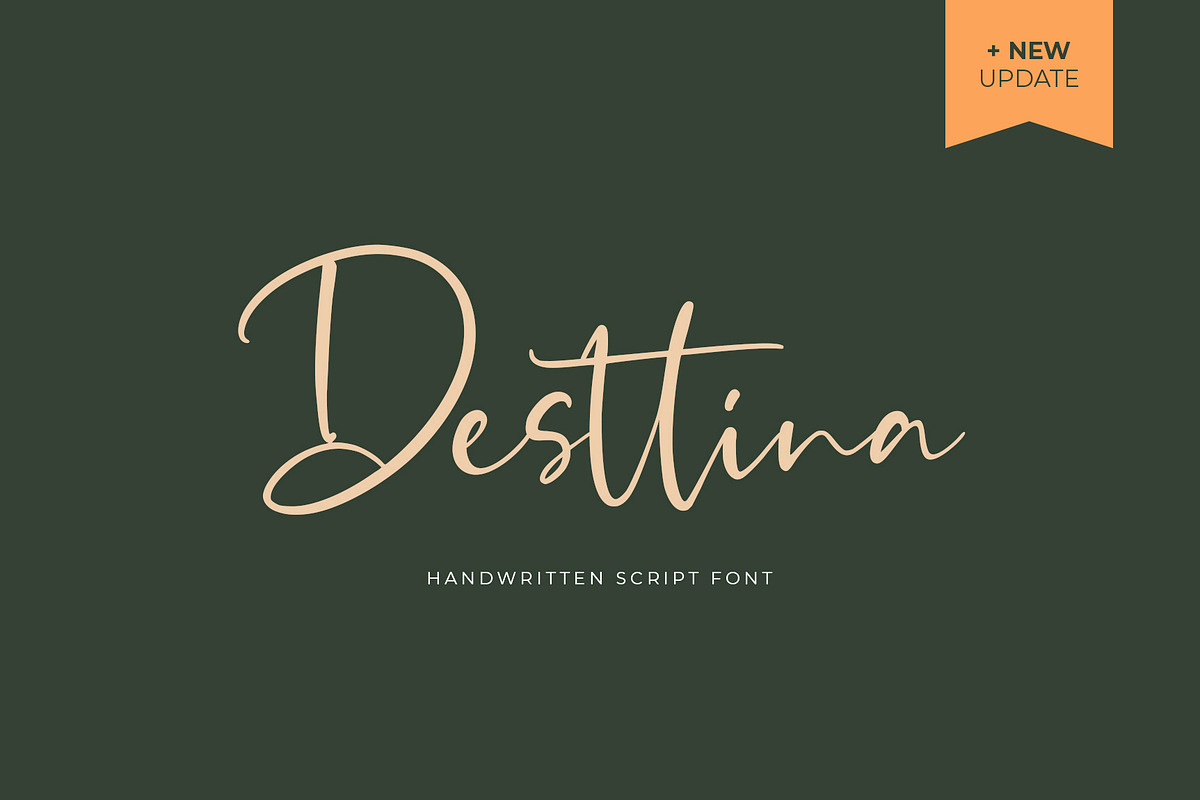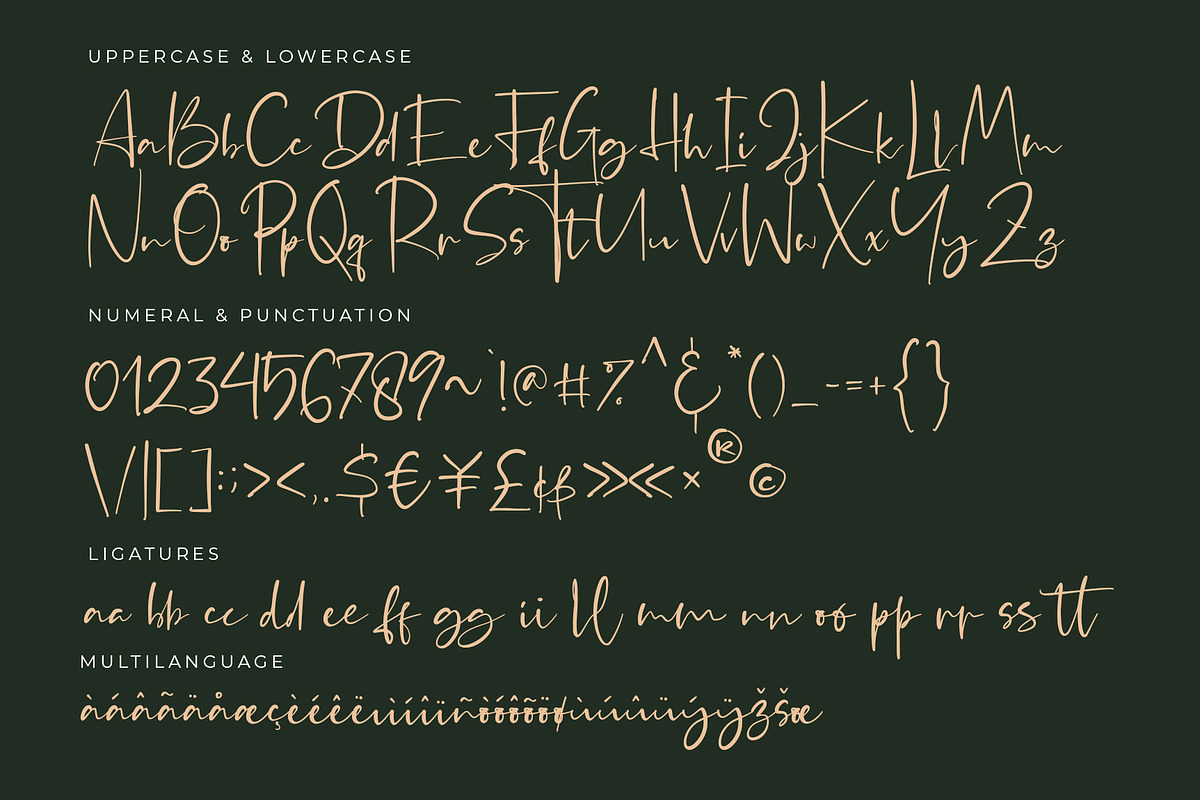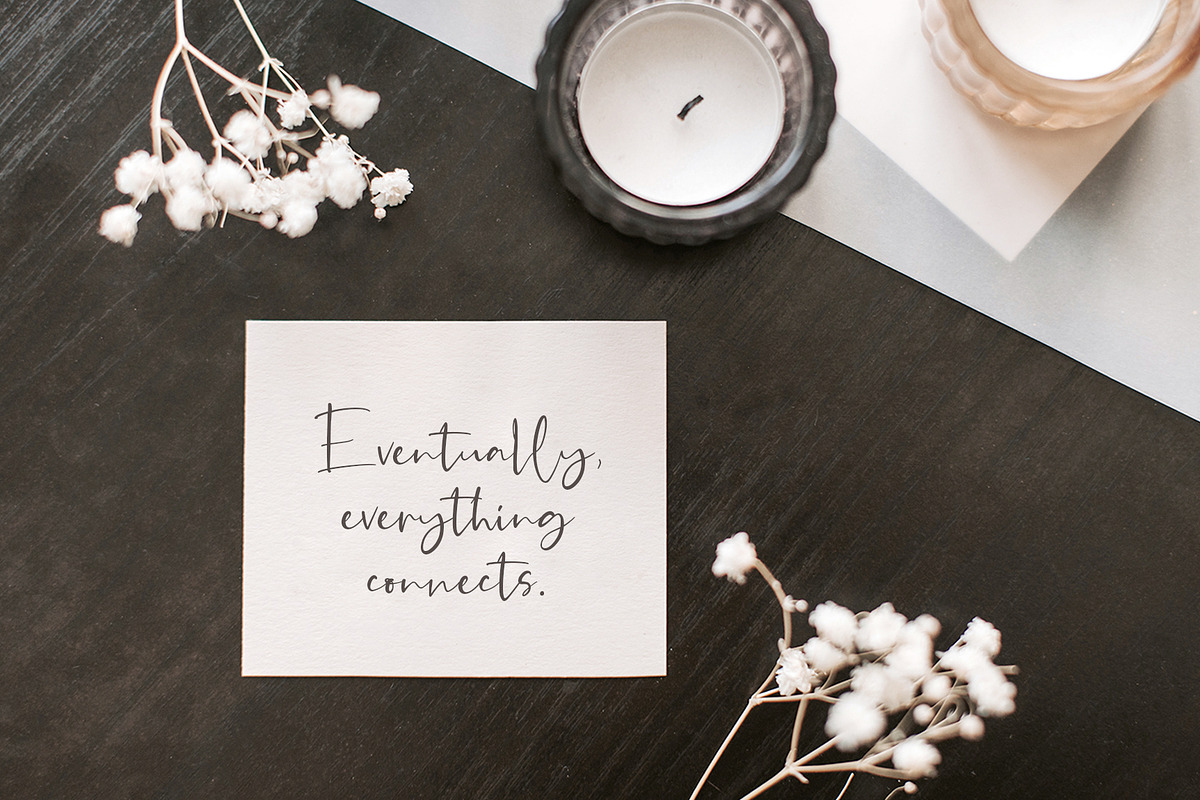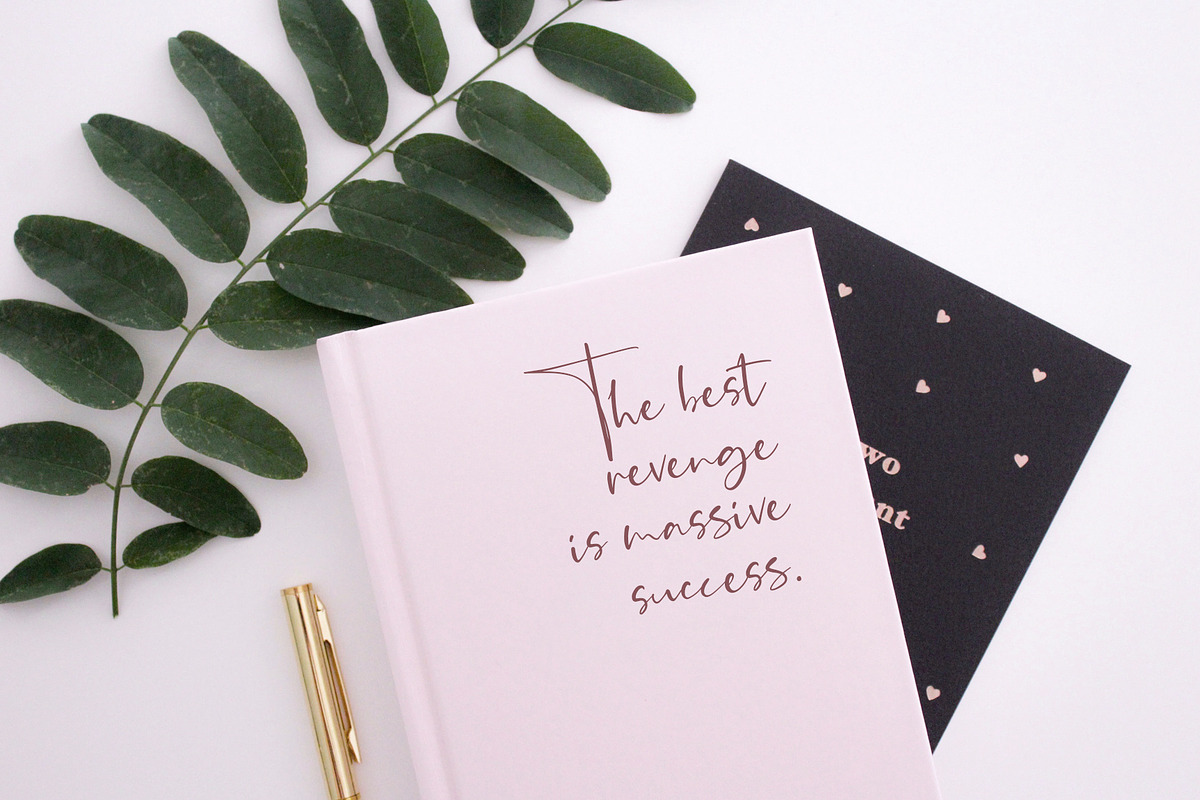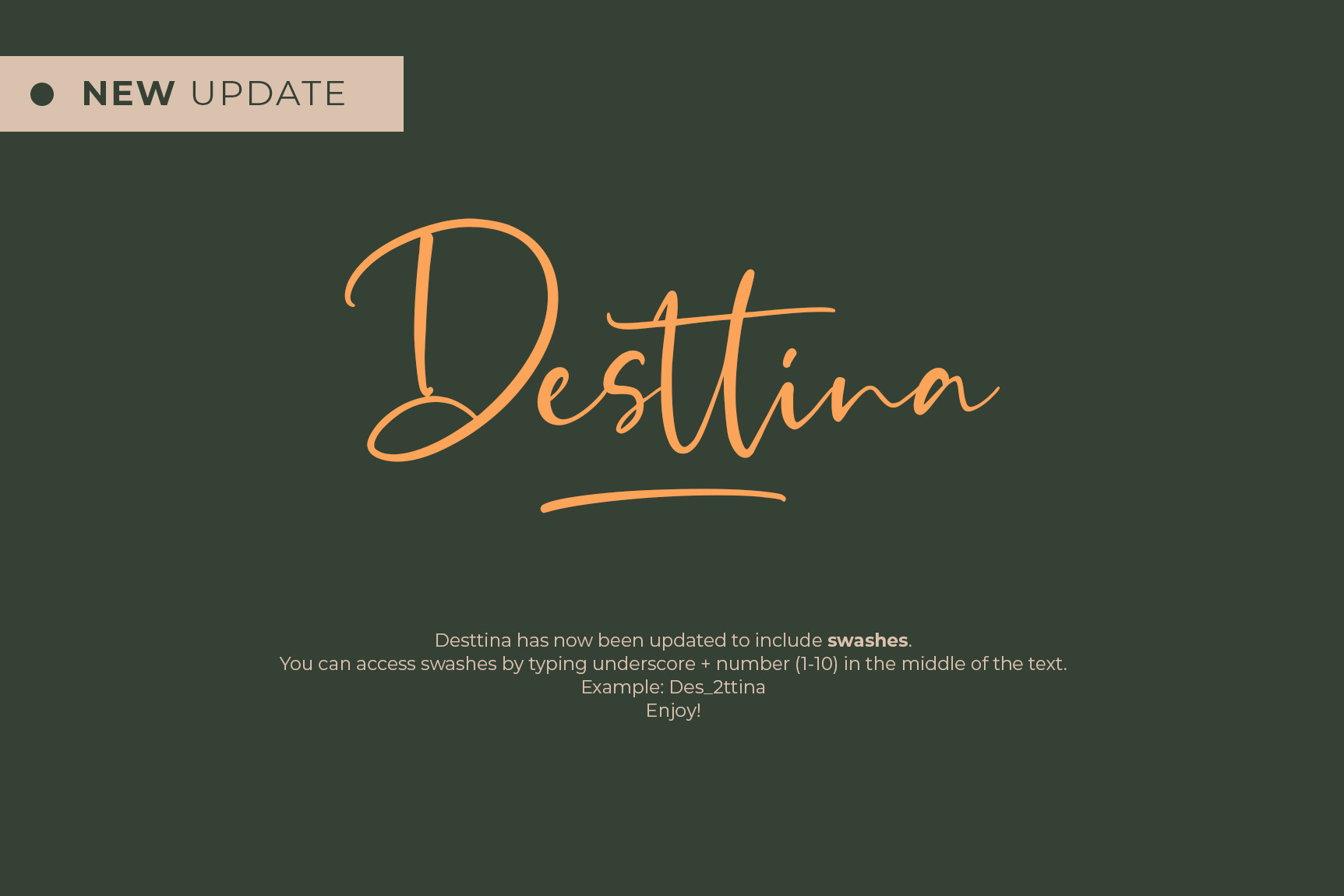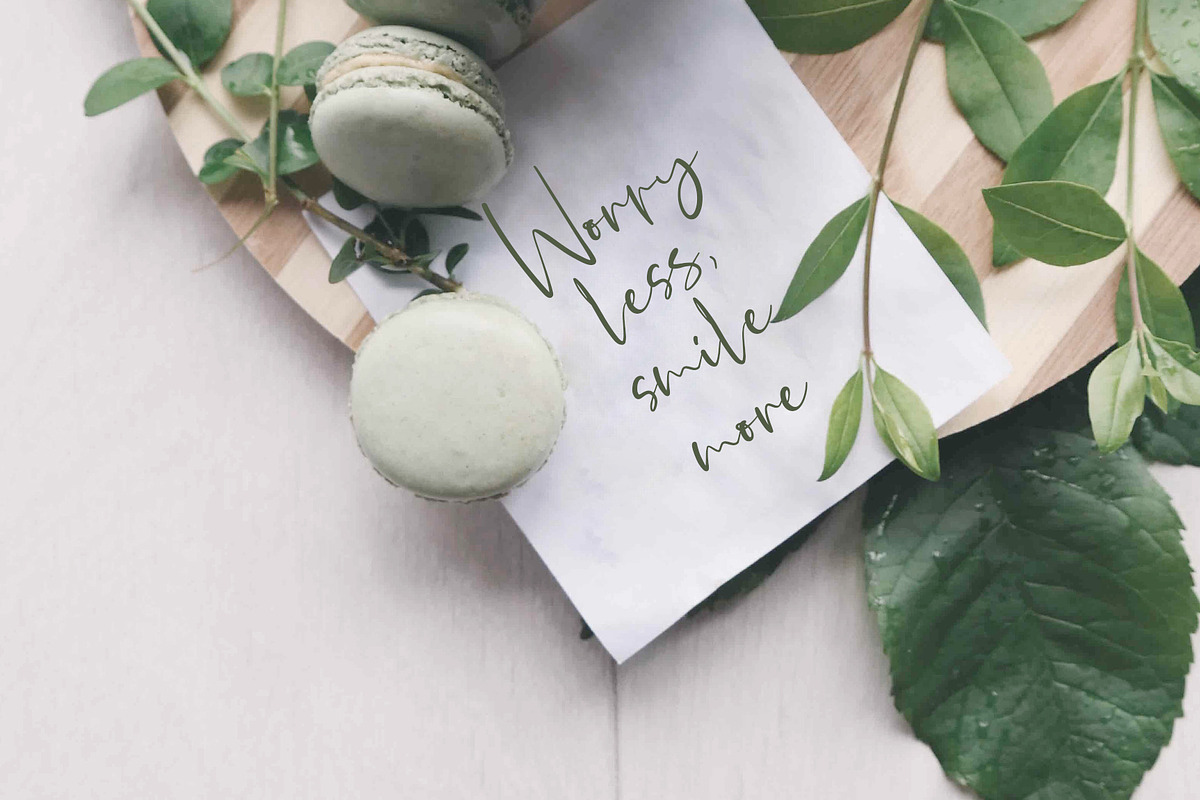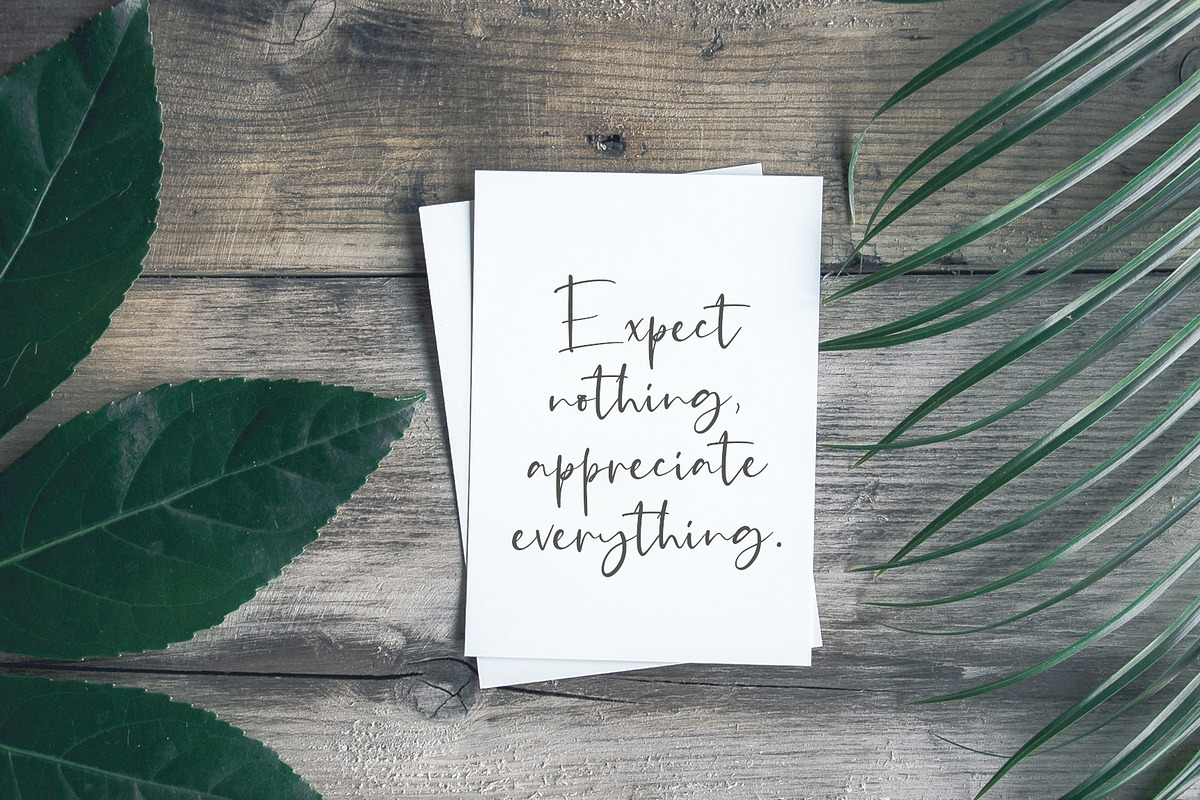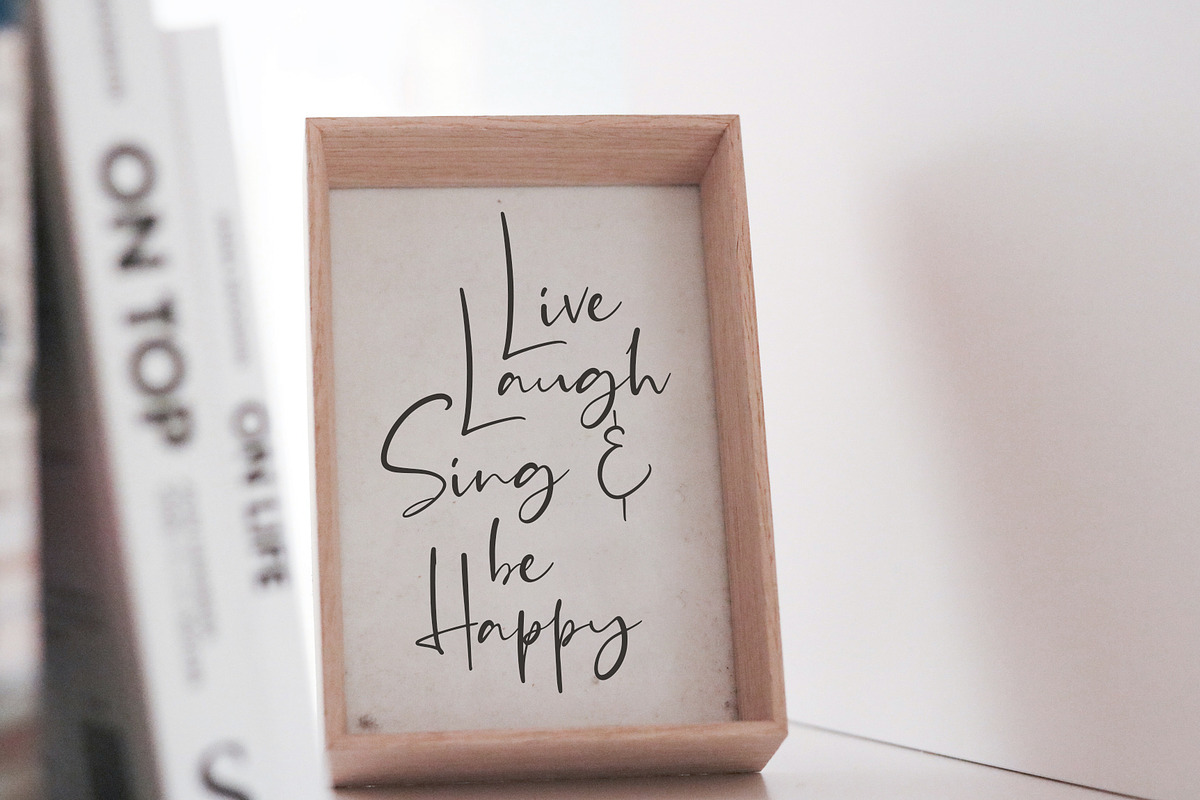
Desttina Font (New Update!)
Desttina is a beautiful handwritten font with an amazing feel. It will add a smart charm to any design project!
New Update . Swashes! Desttina has now been updated to include swashes. You can access swashes by typing underscore + number (1-10) in the middle of the text. Example: Des_2ttina